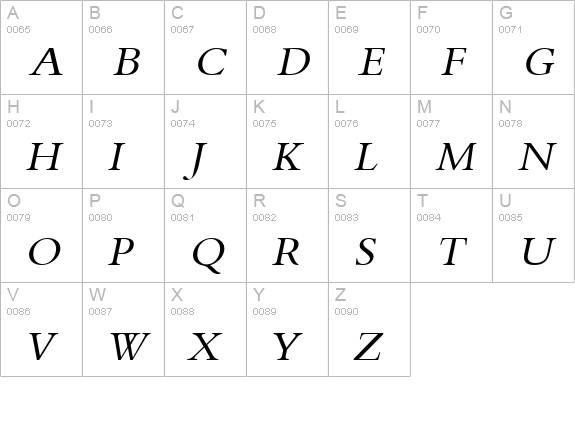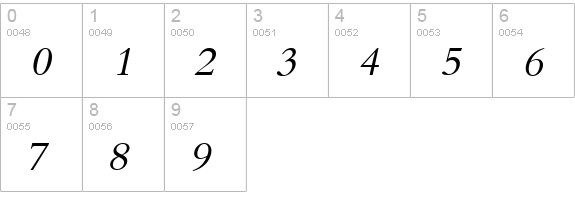
Nadine 2 Wide Italic is a distinctive, extended-width, italic variant in the Nadine typeface family \xE2\x80\x94 well suited to design and typography projects.
Nadine 2 Wide Italic font is a sleek and modern typeface that exudes elegance and sophistication. Its bold and italicized design adds a touch of flair to any project, making it perfect for a wide range of applications from branding to editorial design. The unique letterforms and wide spacing give Nadine 2 Wide Italic font a distinctive look that is sure to make your text stand out. And the best part? Nadine 2 Wide Italic font is available for free download at FontsMarket.com. This means you can add this stunning typeface to your font collection without breaking the bank. Whether you're a designer looking to elevate your projects or a creative looking for a fresh new font to play with, Nadine 2 Wide Italic font is a great choice. Download it today and take your designs to the next level!